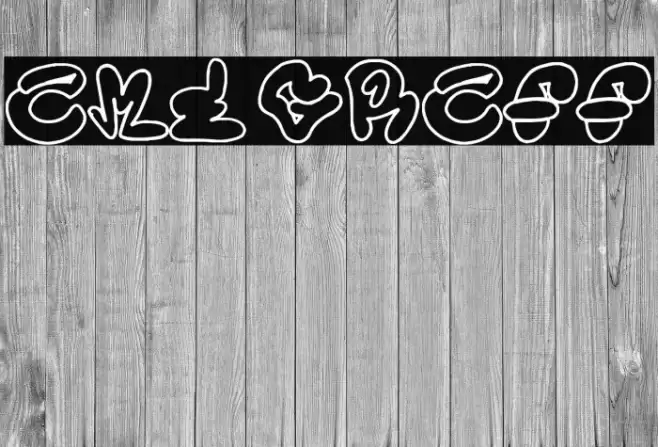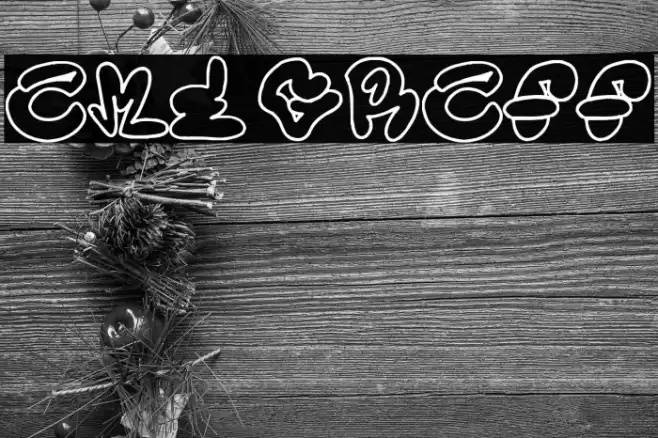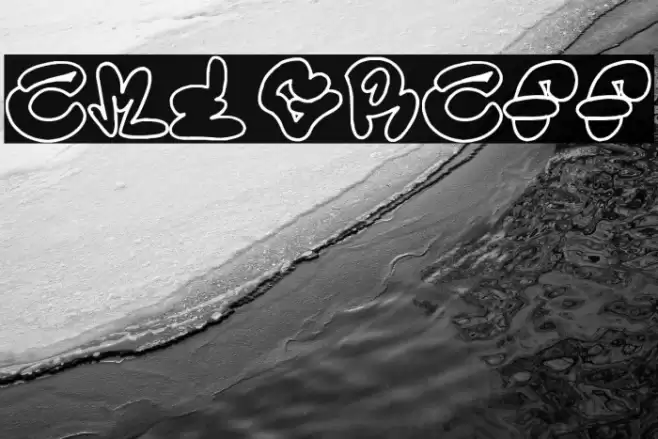
ame graff Font
ame graff Description
This font features a bold, graffiti-inspired style with thick, rounded outlines that give it a playful and urban feel. The characters are highly stylized, with exaggerated curves and a sense of movement, reminiscent of street art. The uppercase and lowercase letters maintain a consistent design, ensuring a cohesive look. The numbers and special characters are equally dynamic, adding to the font's versatility. This font is ideal for projects that require a bold and expressive typeface, capturing attention with its unique and artistic flair.
A bold, graffiti-inspired font with thick, rounded outlines and a playful urban style from Uncategorized fonts.
- Proposed Projects: Perfect for street art designs, urban-themed posters, music album covers, and creative branding projects.
- Overall Style: Urban, Artistic, Playful